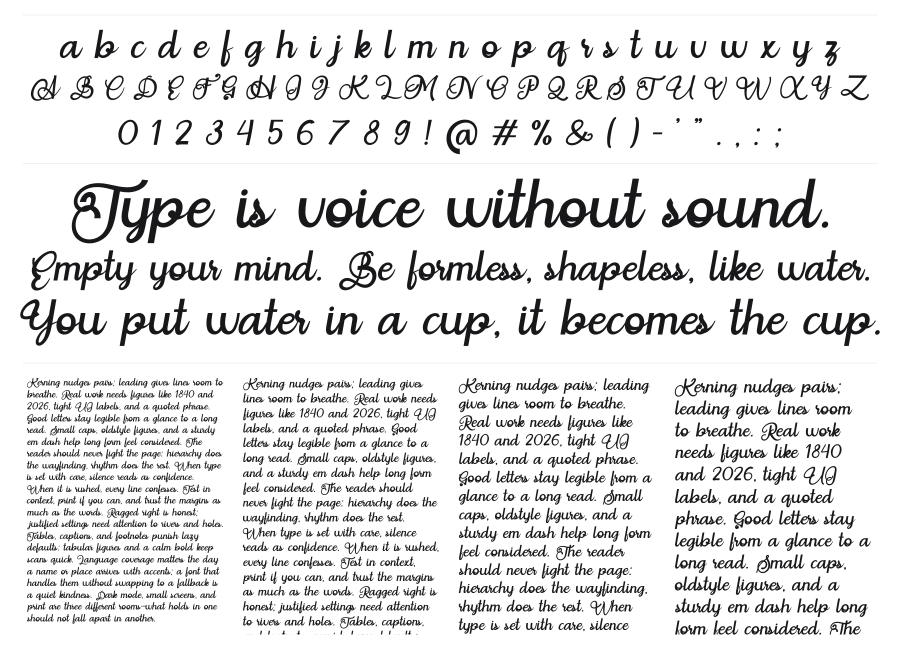
Situgintu
by FallenGraphic Studio · Website
Situgintu is a bold connected casual script with smooth flowing curves and confident stroke weight. It draws from mid-century sign-painting traditions, balancing a handmade feel with consistent construction. Works well for logos, packaging, and any project that needs warmth without going overly formal.